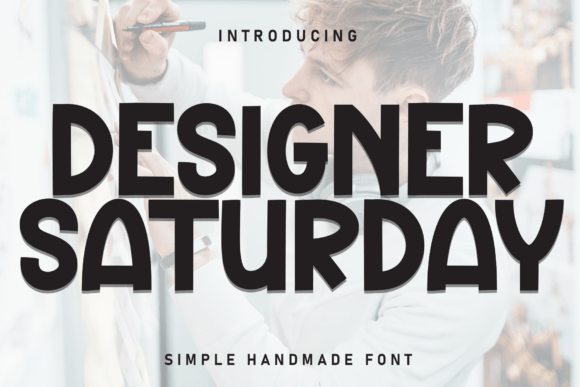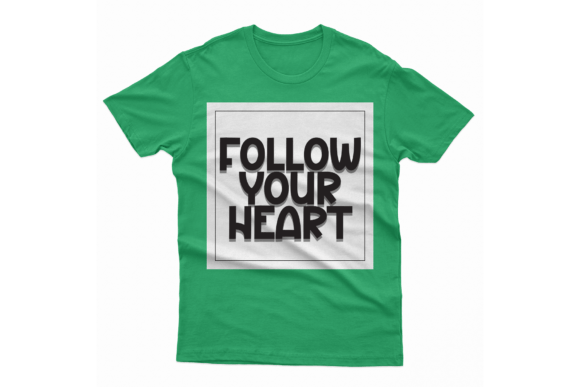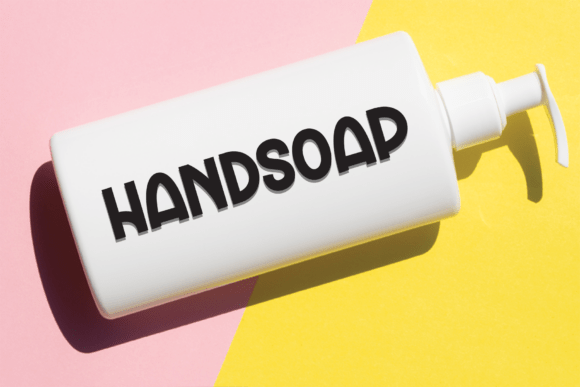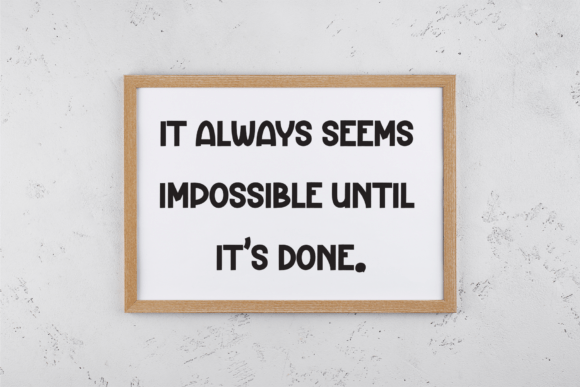
Designer Saturday Font
About the Designer Saturday Font
Crafted with precision, the Designer Saturday Font is ready to bring your ideas to life. This handwritten display font brings charm and character to every letter. With its playful strokes and casual flow, it captures the essence of authentic handwriting—perfect for quotes, greeting cards, branding, and anything that needs a personal, heartfelt touch. Whether you’re crafting for kids or designing a modern logo, this font adds warmth and whimsy to your work.
Designer Saturday Font excels in headlines, short slogans, and branding applications where a friendly, approachable feel is desired. Its playful nature makes it ideal for children’s products, invitations, and social media graphics. However, avoid using it for body text or lengthy paragraphs; its informal style is illegible at smaller sizes.
Consider pairing it with a clean sans-serif like Open Sans for a balanced contrast, or a more geometric sans-serif such as Montserrat for a modern feel. For a more whimsical approach, a script font with a similar weight could work, but ensure legibility remains a priority.
The font’s core personality is undeniably playful and charming, yet retains a level of sophistication. It’s perfect for brands focused on handmade goods, artisanal products, or companies aiming for a youthful and approachable image.
Designer Saturday Font Usage Examples
Designer Saturday Font Example